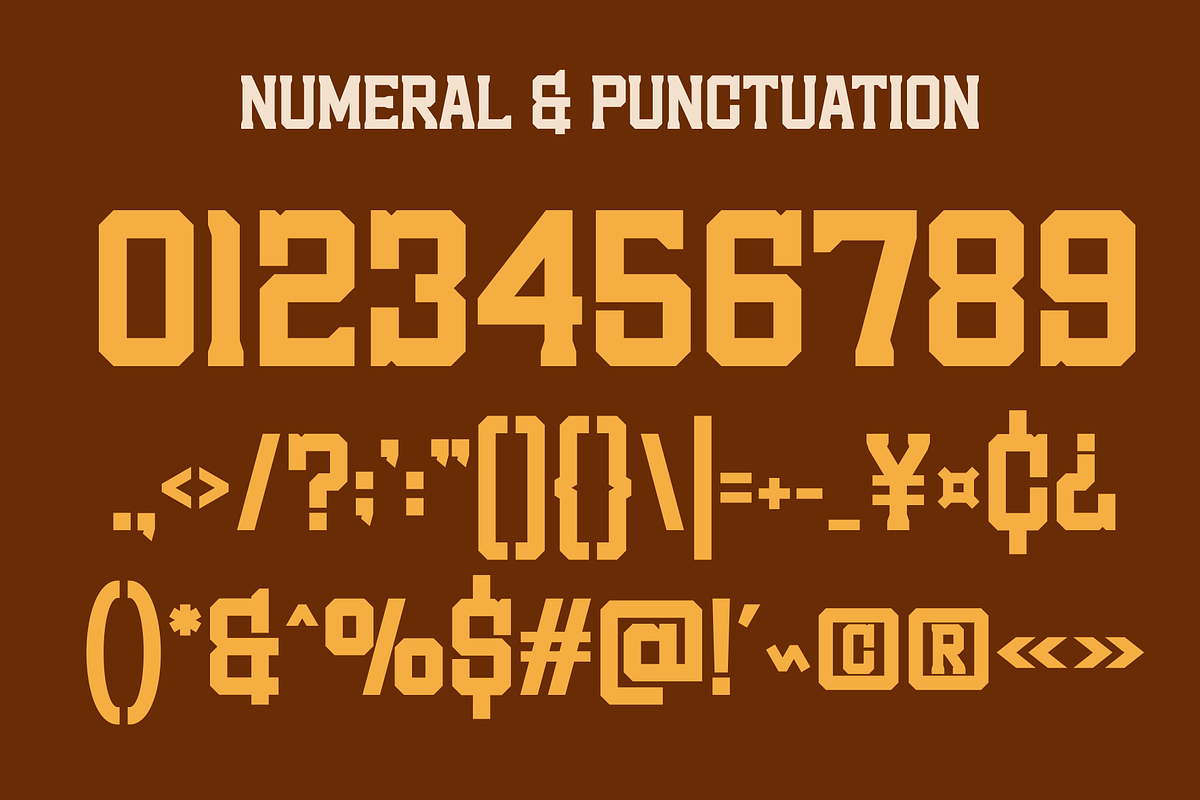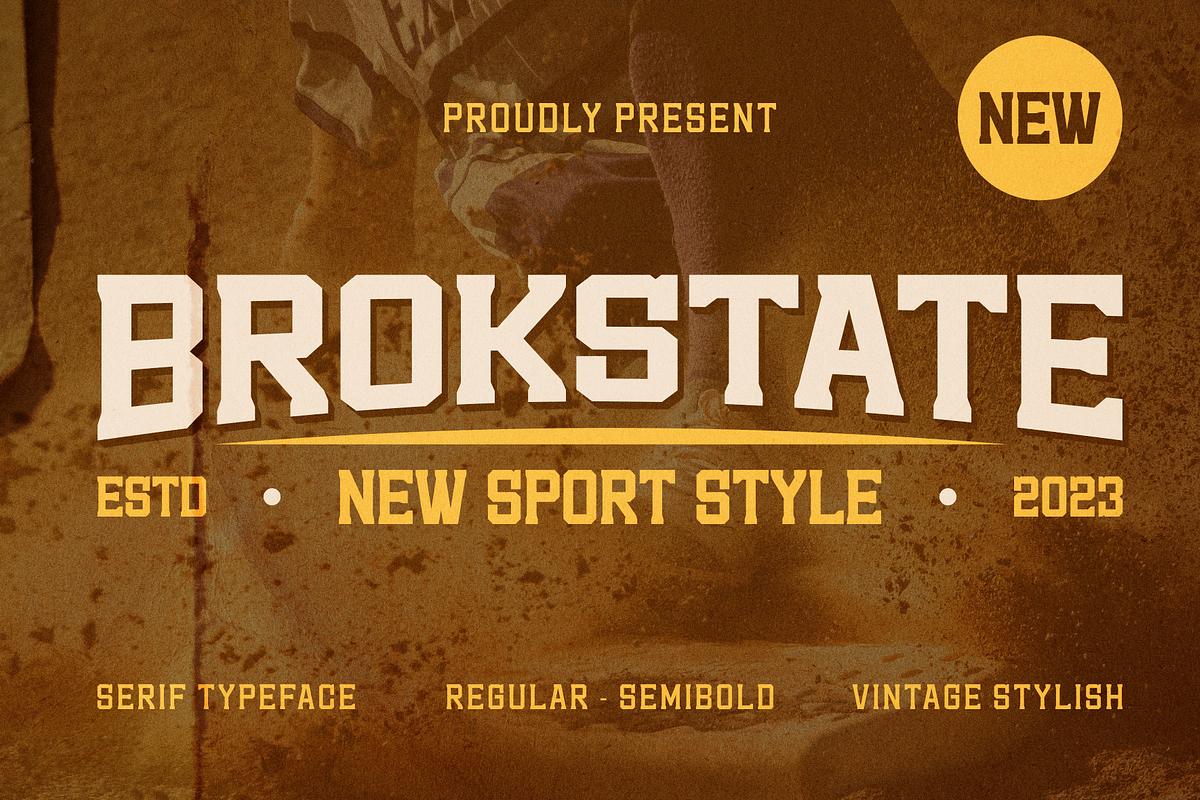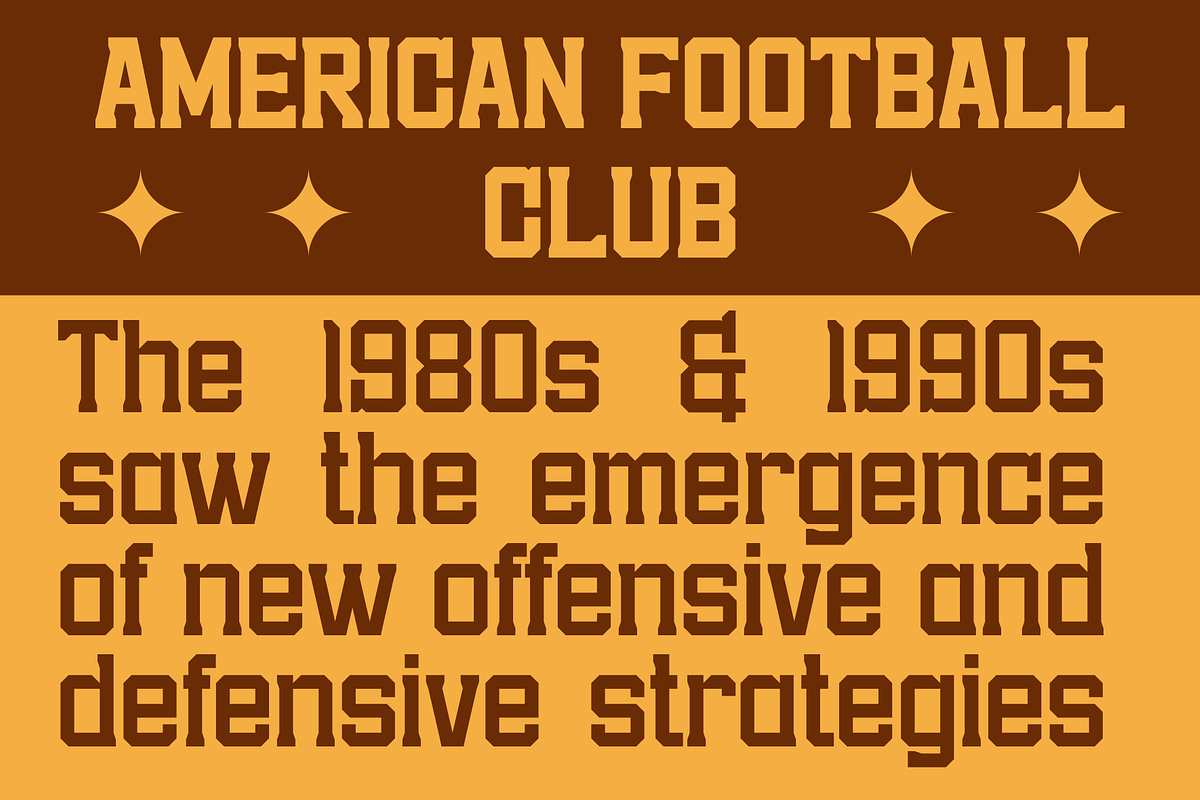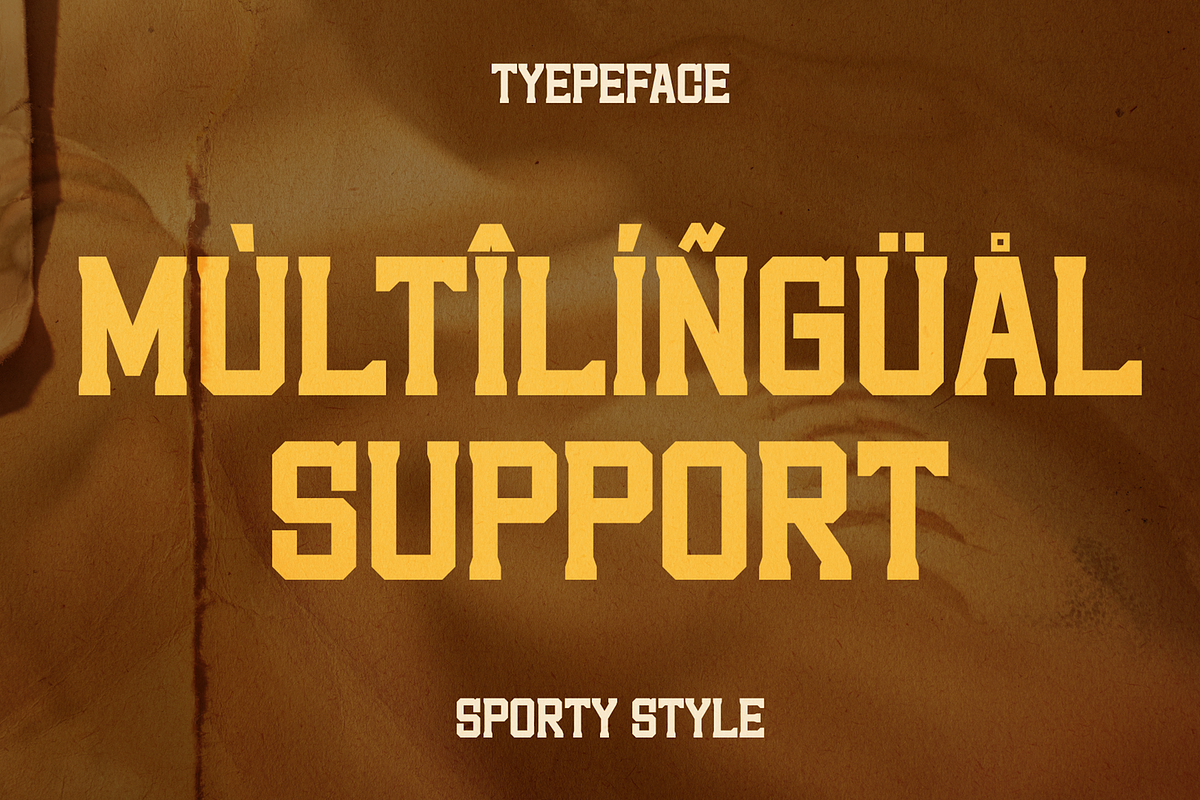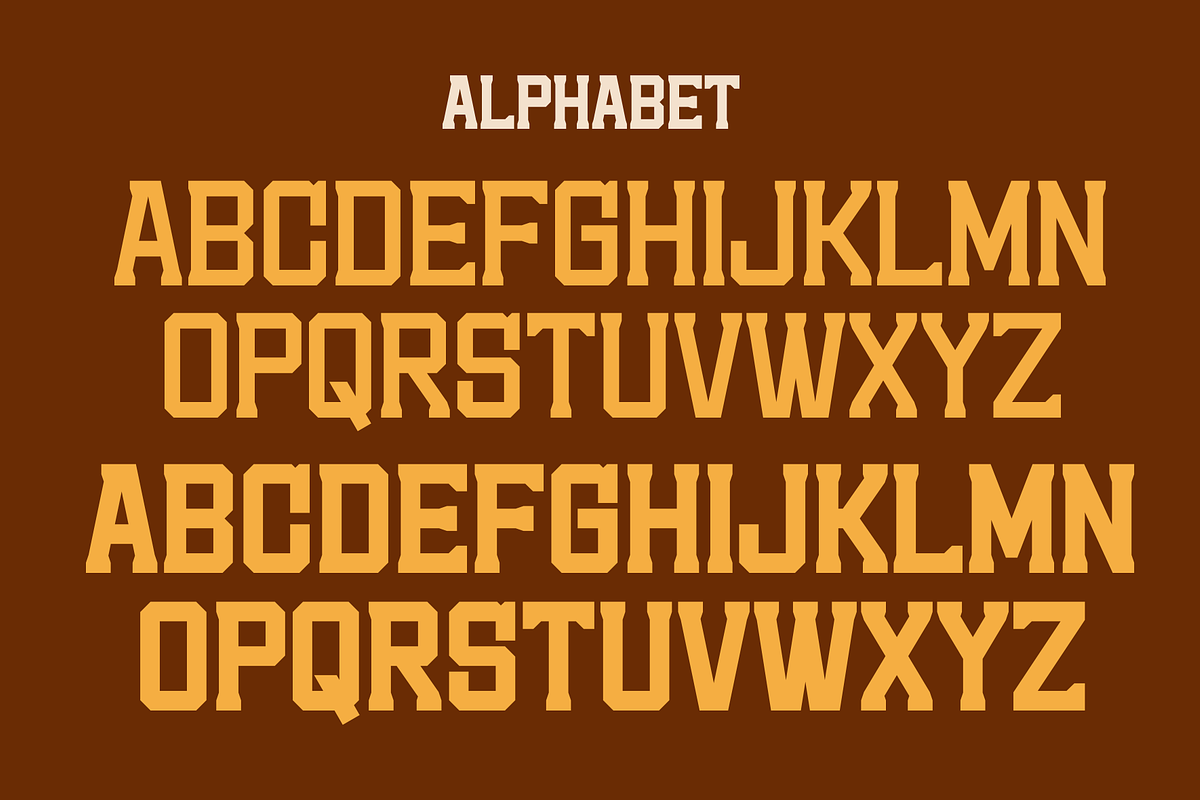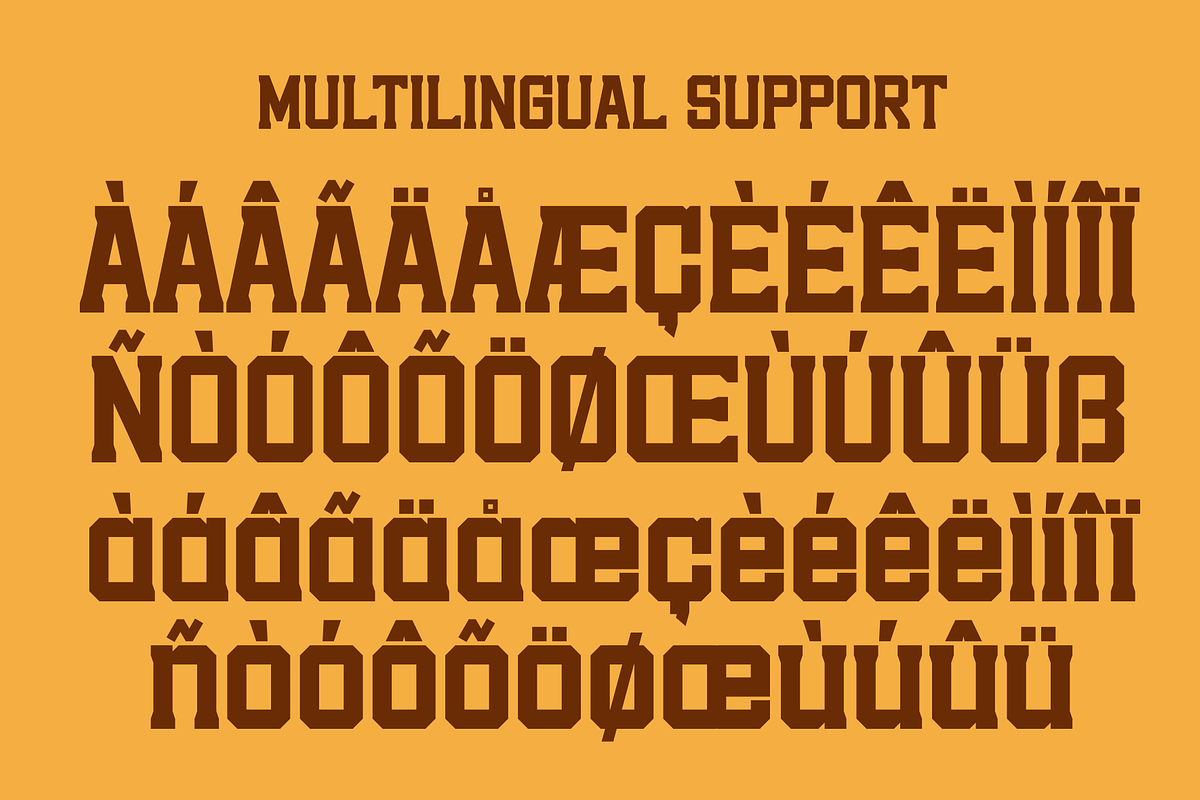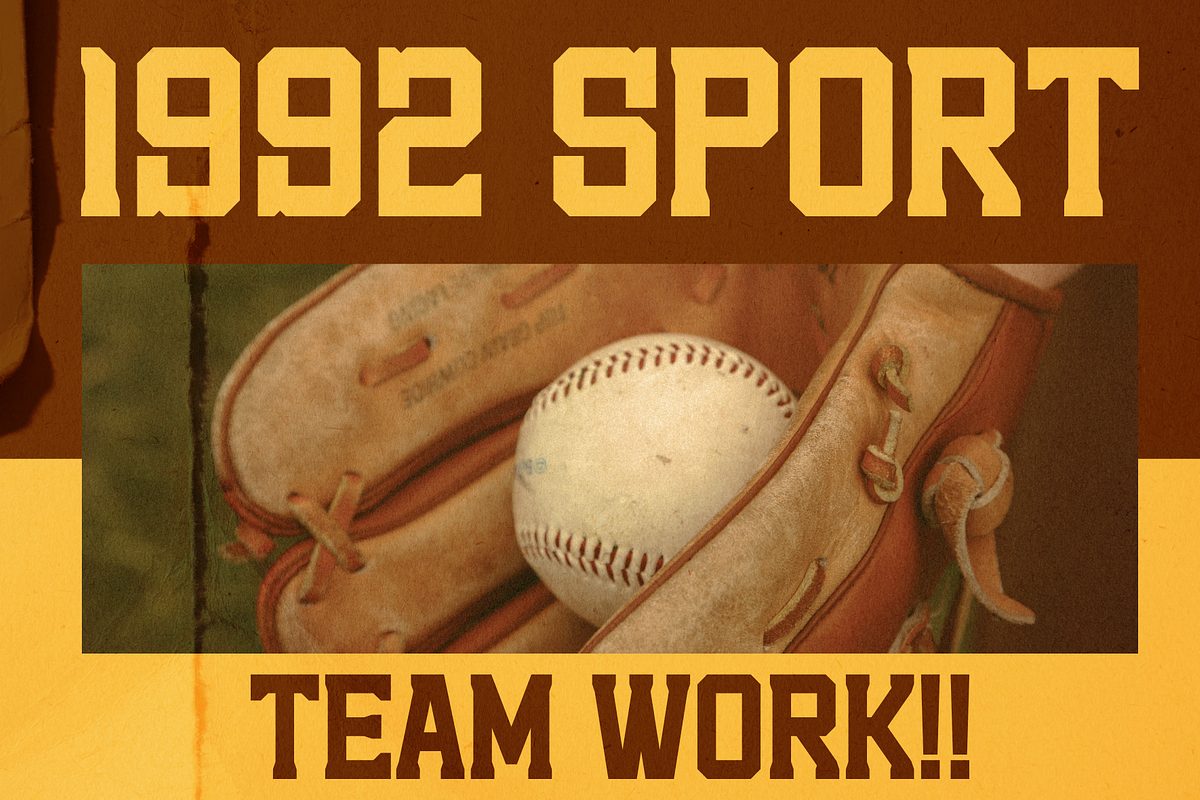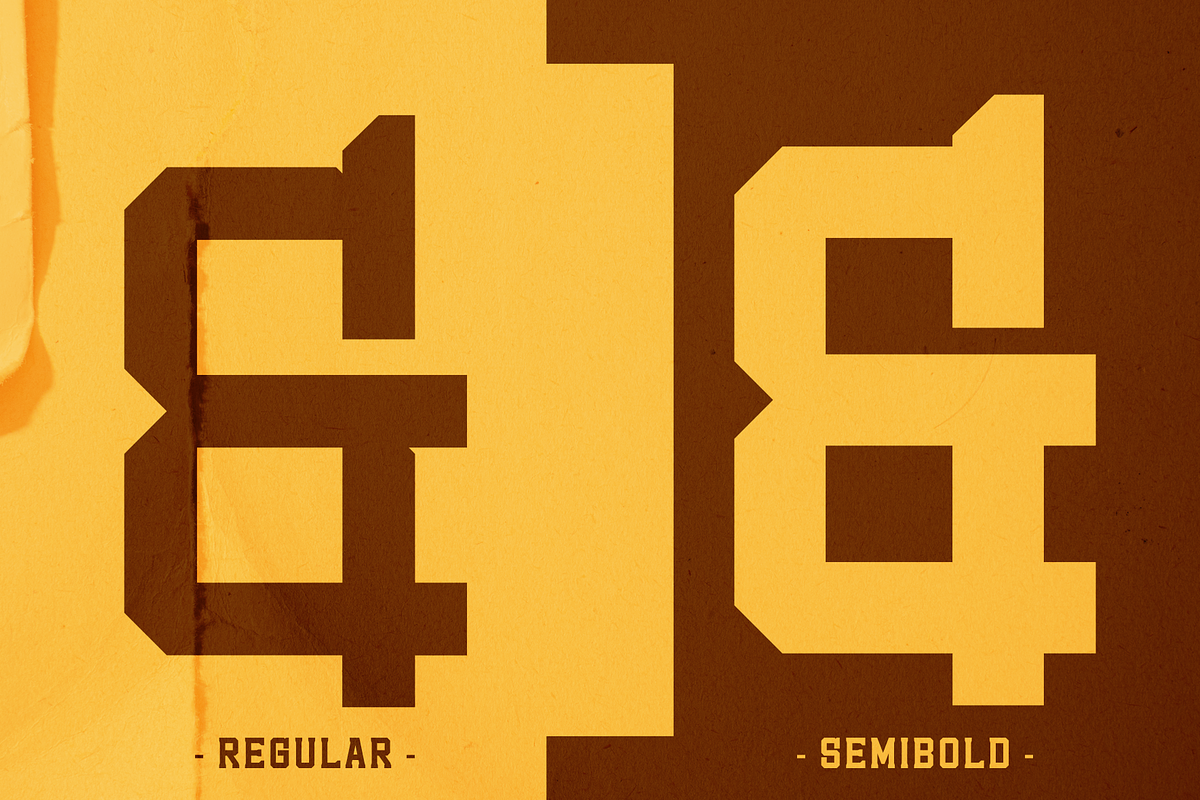
Brokstate Font
Introducing our new product Brokstate Font - Modern Font is a bold and authentic display font. The font is suitable for any branding project like logo, Template Design, Product and many more. outstanding in a wide range of contexts.